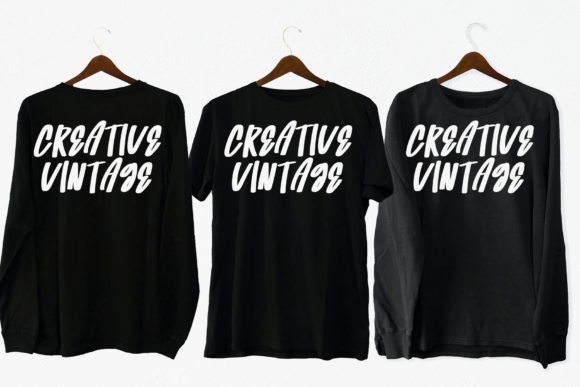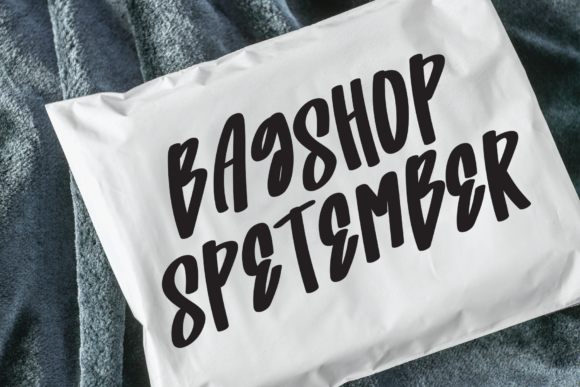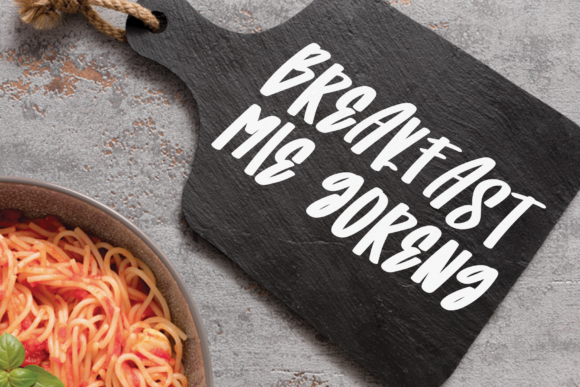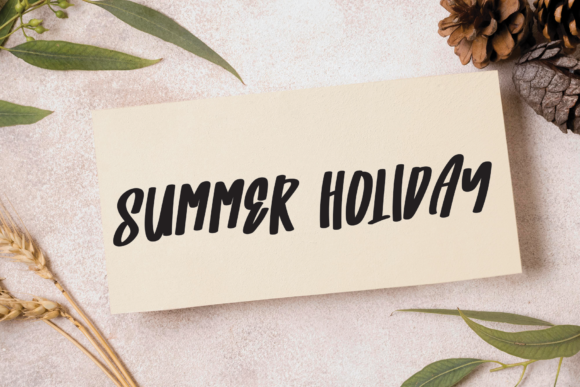
Introducing Black Love Font: The Ultimate Choice for Creative Expression
Are you a designer, crafter, or social media enthusiast looking for a font that can elevate your creative projects? Look no further than Black Love Font, a trendy, thick lettered, and cool handwritten font that’s taking the design world by storm. In this article, we’ll dive into the features, benefits, and uses of Black Love Font, and explore how it can help you turn your creative ideas into stunning works of art.
What is Black Love Font?
Black Love Font is a modern, handwritten font that’s characterized by its thick, bold letters and cool, edgy vibe. This font is perfect for designers and crafters who want to add a touch of personality and style to their projects. Whether you’re creating social media graphics, calligraphy scripts, or DIY projects, Black Love Font is the perfect choice.
Key Features of Black Love Font
- Trendy and Modern: Black Love Font is a fresh and contemporary font that’s perfect for designers and crafters who want to stay on top of the latest design trends.
- Thick and Bold Letters: The font features thick, bold letters that are perfect for creating eye-catching headlines, titles, and graphics.
- Cool and Edgy Vibe: Black Love Font has a cool, edgy vibe that’s perfect for designers and crafters who want to add a touch of attitude to their projects.
- Handwritten Style: The font has a handwritten style that’s perfect for creating personal, unique, and authentic designs.
- Versatile: Black Love Font is a versatile font that can be used for a wide range of projects, from social media graphics to calligraphy scripts and DIY projects.
Uses of Black Love Font
Black Love Font is a versatile font that can be used for a wide range of projects, including:
- Social Media Graphics: Use Black Love Font to create eye-catching social media graphics, such as Instagram posts, Facebook headers, and Twitter graphics.
- Calligraphy Scripts: Use Black Love Font to create beautiful calligraphy scripts for DIY projects, such as wedding signs, party decorations, and gift tags.
- DIY Projects: Use Black Love Font to add a touch of personality and style to your DIY projects, such as handmade cards, gift boxes, and scrapbook pages.
- Branding and Marketing: Use Black Love Font to create bold and eye-catching branding and marketing materials, such as logos, brochures, and flyers.
Benefits of Using Black Love Font
There are many benefits to using Black Love Font, including:
- Unique and Authentic: Black Love Font is a unique and authentic font that can help you stand out from the crowd.
- Easily Readable: The font is easily readable, even at small sizes, making it perfect for use in a wide range of projects.
- Customizable: Black Love Font is highly customizable, allowing you to adjust the font size, color, and style to suit your needs.
- Time-Saving: Using Black Love Font can save you time and effort, as you can quickly and easily create professional-looking designs.
Tips for Using Black Love Font
Here are some tips for using Black Love Font:
- Use it Boldly: Black Love Font is a bold and eye-catching font, so don’t be afraid to use it boldly and make a statement.
- Mix and Match: Mix and match Black Love Font with other fonts and design elements to create unique and interesting combinations.
- Keep it Simple: Don’t overcomplicate your designs – keep it simple and let Black Love Font do the talking.
Black Love Font is a trendy, thick lettered, and cool handwritten font that’s perfect for designers and crafters who want to add a touch of personality and style to their projects. With its bold and eye-catching letters, versatile uses, and numerous benefits, Black Love Font is the ultimate choice for creative expression. Whether you’re creating social media graphics, calligraphy scripts, or DIY projects, Black Love Font is sure to turn your creative ideas into stunning works of art.